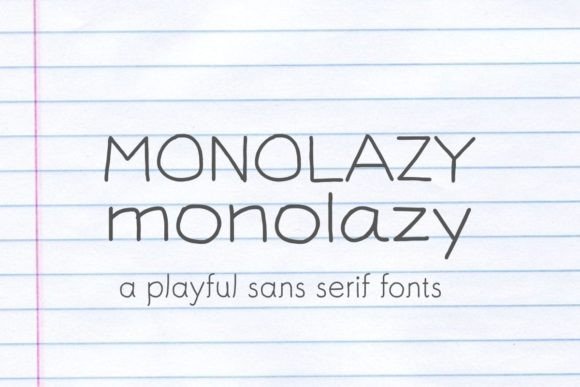
Step into a world of effortless style and modern elegance with Monolazy, the sans serif font that will captivate your designs and leave a lasting impression. Its clean lines and playful personality add a touch of whimsy and sophistication to any project, making it an ideal choice for designers seeking a font that stands out from the crowd.
Monolazy is the brainchild of Font-Tastic, a renowned foundry known for crafting fonts that combine beauty with functionality. This thin and playful font exudes a minimalist aesthetic that complements a wide range of design styles, from contemporary to classic.
Whether you're crafting eye-catching posters, elegant paragraphs, inspiring quotes, or dynamic flyers, Monolazy seamlessly adapts to your creative vision. Its versatility extends to t-shirts, websites, books, and countless other applications, making it a truly indispensable tool in your design arsenal.
With Monolazy, you'll discover a font that goes beyond functionality: it's an expression of your unique style. Its clean strokes and playful curves will add a touch of charm and sophistication to your designs, ensuring they make an unforgettable impact.
Don't settle for ordinary fonts that blend into the background. Embrace Monolazy, the sans serif font that will elevate your designs to new heights of elegance and creativity. Let its playful personality and versatile nature inspire your imagination and unlock a world of design possibilities.